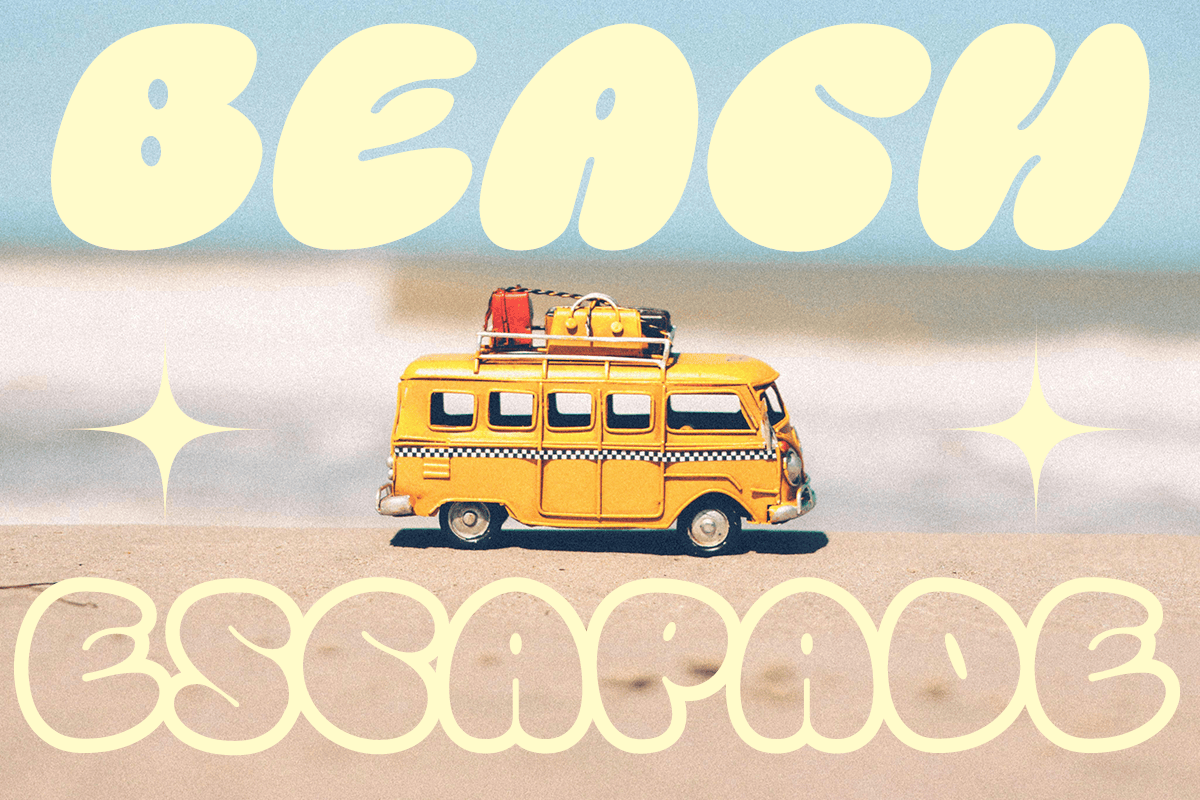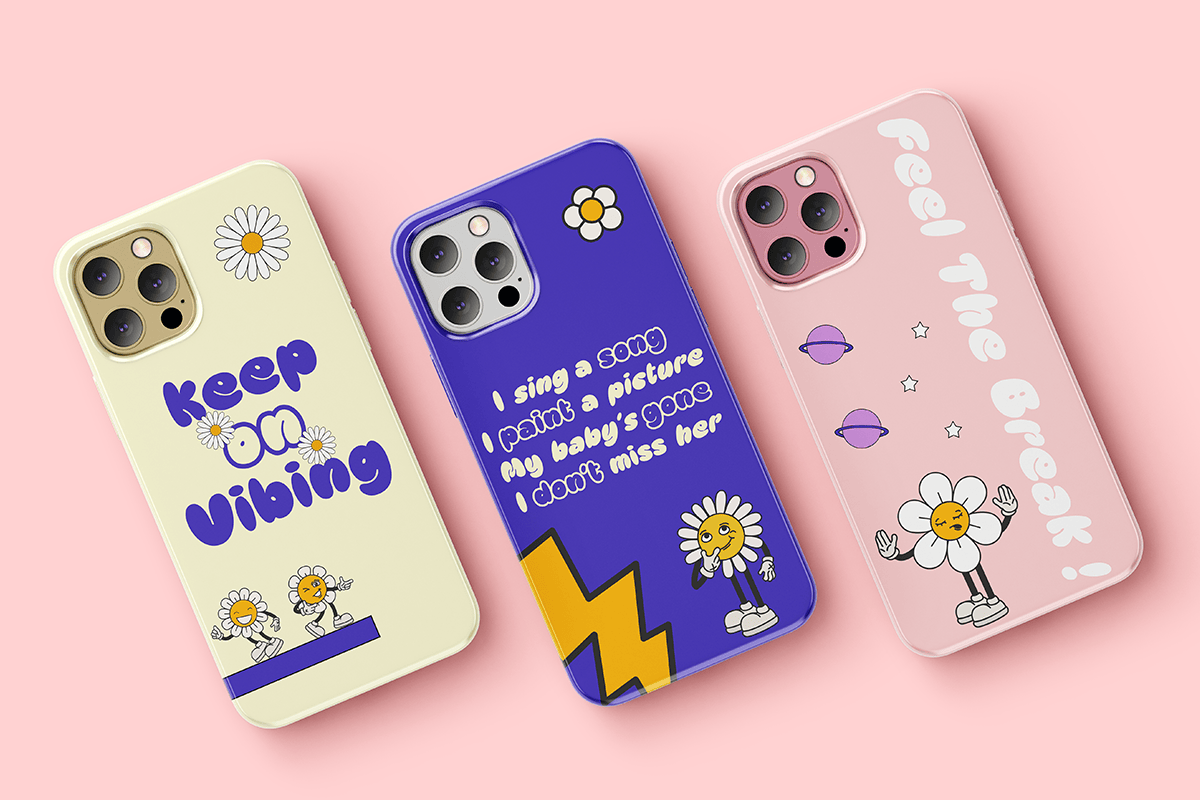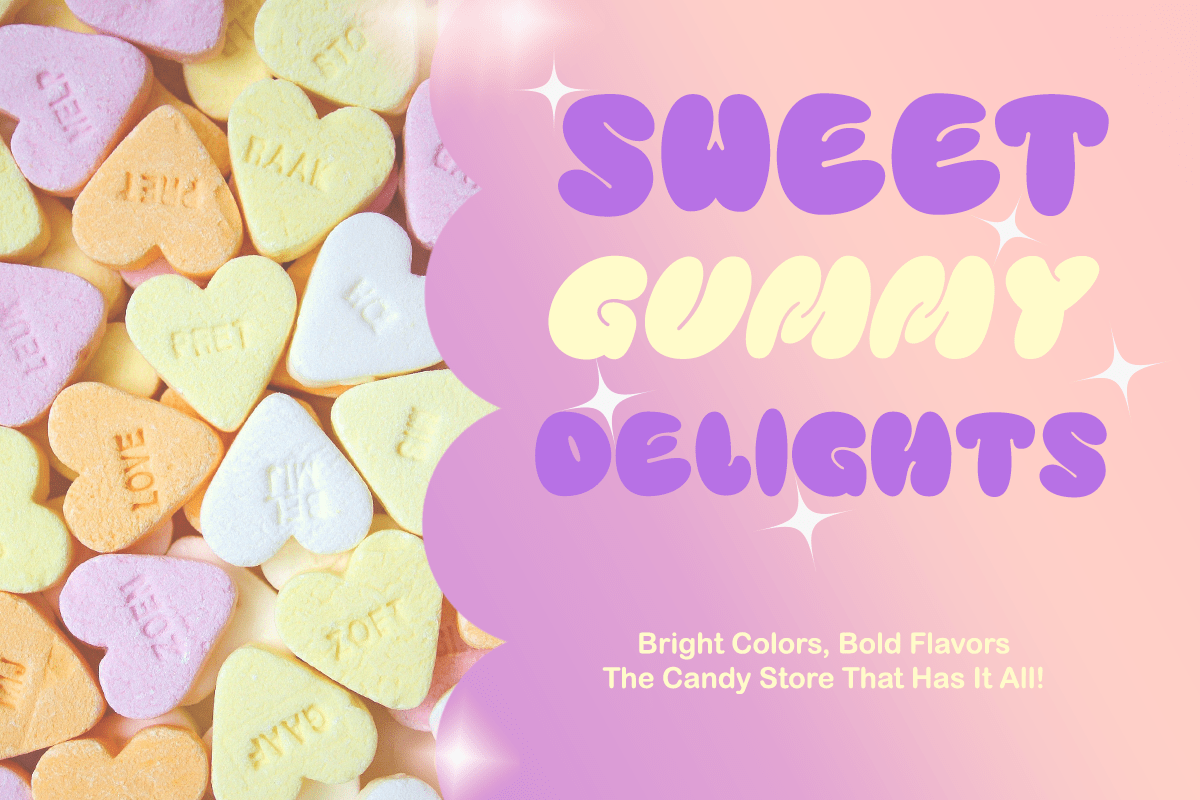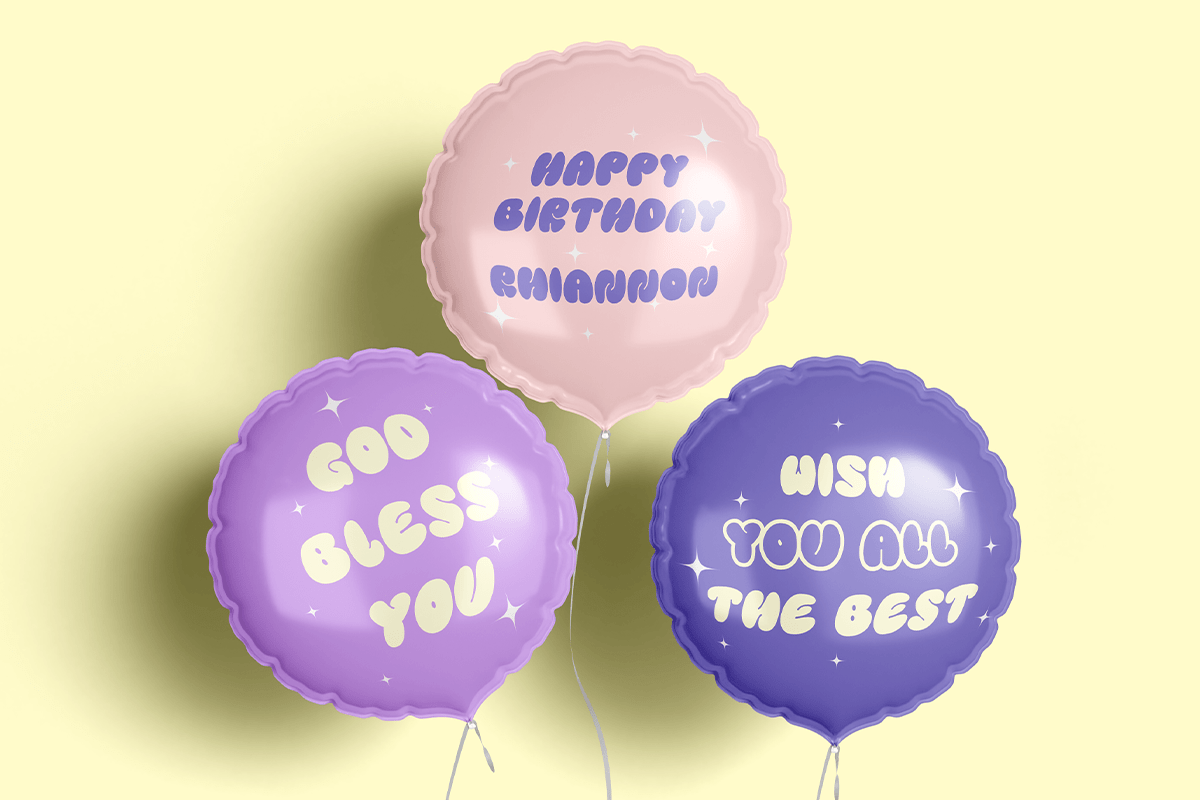
Playful Bubble – Fun and Cheerful Display
Playful Bubble is a fun and cheerful display bubble typeface designed to bring joy, sweetness, and creativity to every project. Featuring soft rounded shapes, puffy letterforms, and a whimsical personality, this font instantly creates a friendly atmosphere perfect for children’s products, candy branding, playful packaging, birthday themes, and colorful marketing materials. Its bold bubble style ensures excellent readability while adding a cute and memorable visual impact.
Perfect for logos, posters, social media graphics, product packaging, invitations, greeting cards, merchandise, stickers, apparel, YouTube thumbnails, book covers, and event promotions, Playful Bubble gives every design a vibrant and energetic character. Complete with multilingual support, numbers, punctuation, and alternate outline styles, this typeface offers the flexibility needed for both professional and personal creative projects.
Whether you’re designing for candy shops, toy brands, bakeries, ice cream stores, baby products, school activities, party decorations, or fun lifestyle brands, Playful Bubble delivers a delightful combination of charm and boldness. If you’re looking for a modern bubble display font that makes every design feel happy, colorful, and unforgettable, Playful Bubble is the perfect choice.
– Stylistic alternates
– Uppercase, Lowercase & Ligatures